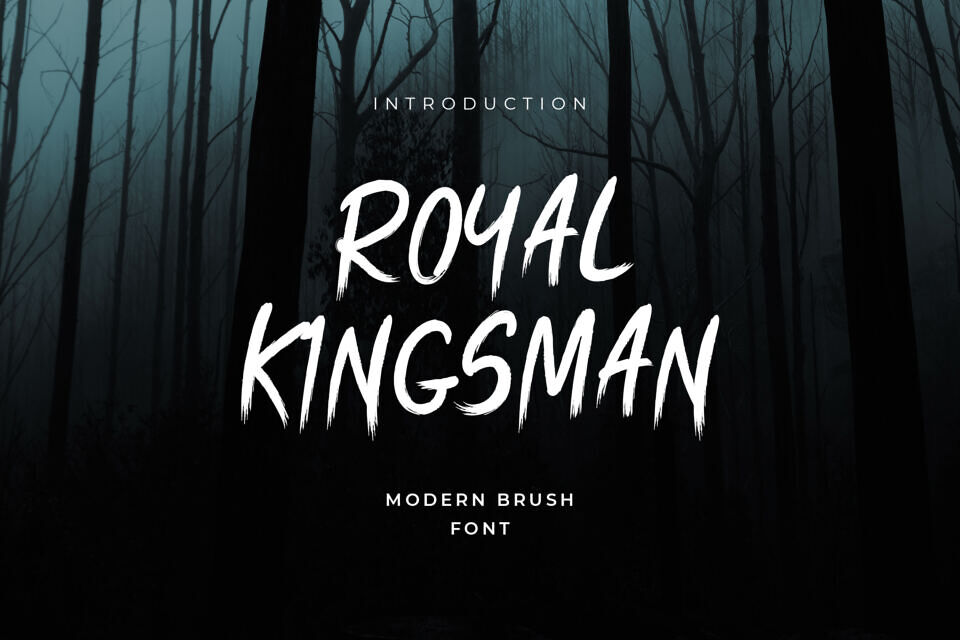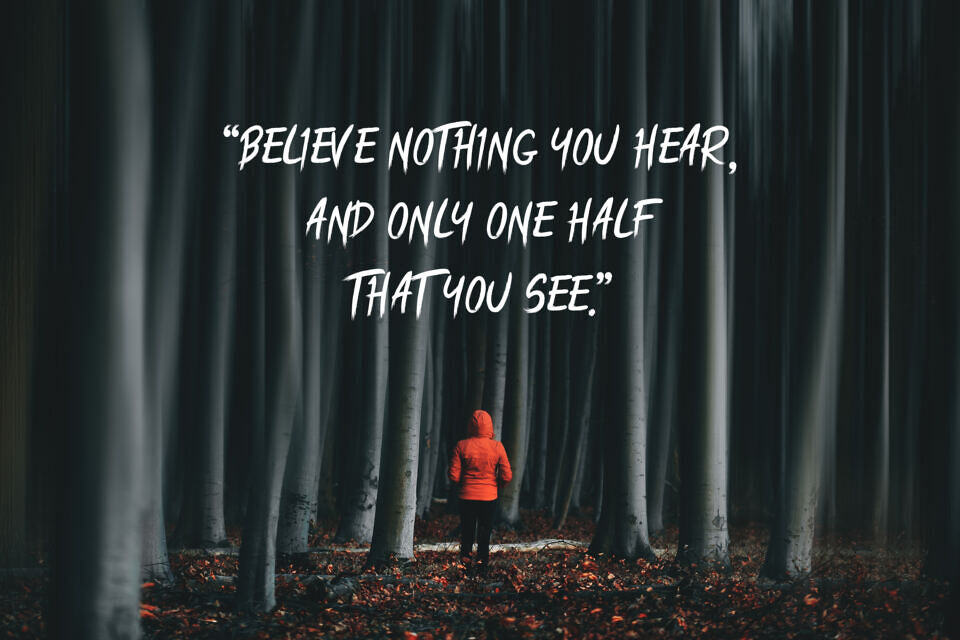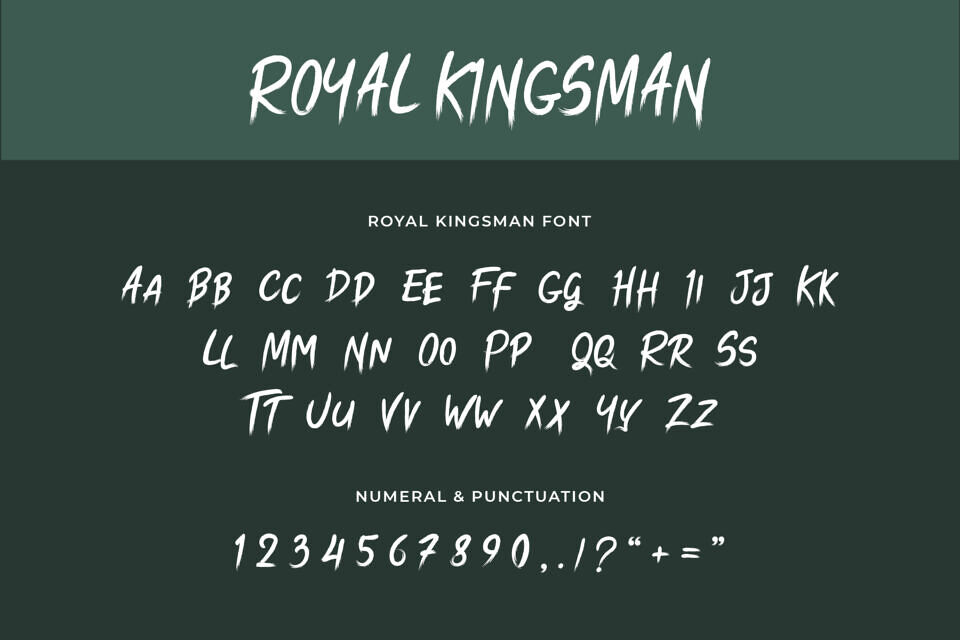
Royal Kingsman Font
Royal Kingsman is an artistic brush font featuring bold, expressive strokes and a handcrafted appearance. Its dynamic lettering adds personality and energy to logos, posters, apparel, branding, social media graphics, spooky projects, and creative headlines. Designed by GraphicSauce, this striking typeface is ideal for projects that need a modern, artistic, and confident touch.
Designed by: GraphicSauce.co